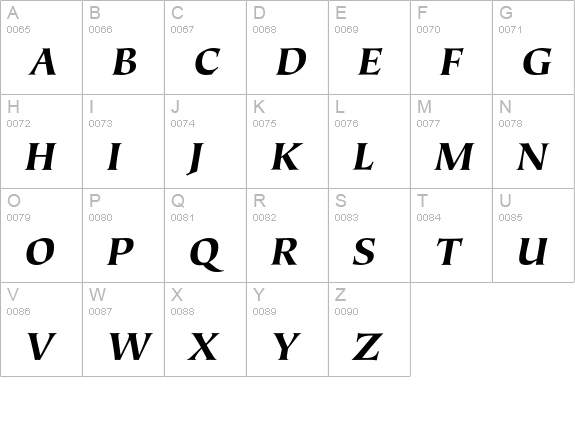
TiepoloEF-BlackItalic Font Details
TiepoloEF-BlackItalic is a stunningly elegant and sophisticated font that exudes a sense of timeless beauty. With its sleek and flowing lines, this font captures the essence of luxury and refinement. The bold and italicized characters add a touch of drama and flair, making it perfect for adding a touch of sophistication to any design project. This font is not only visually striking, but it also offers great versatility. Whether you are designing a logo, creating a stylish poster, or crafting an eye-catching website, TiepoloEF-BlackItalic is sure to make a lasting impression. What makes this font even more appealing is that it is available for free download at FontsMarket.com. This means that you can enjoy the beauty and elegance of TiepoloEF-BlackItalic without any cost. Whether you are a professional designer or a hobbyist, having access to such a high-quality font without having to spend a penny is truly a gift. So why wait? Enhance your designs and captivate your audience with the stunning TiepoloEF-BlackItalic font. Download it for free at FontsMarket.com and experience the power of elegance and sophistication in your creative endeavors.